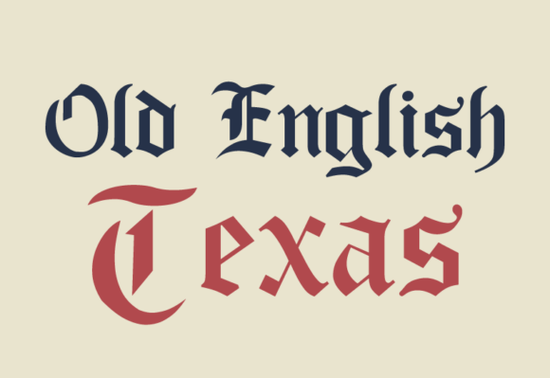
If you're working on a design that calls for bold, historic flair with a Western edge, the Old English Texas Font might be exactly what you need. This blackletter typeface blends traditional Old English letterforms with a rugged, Texan attitude making it stand out from more generic gothic fonts. Whether you're designing vintage signage, tattoo flash sheets, or apparel graphics, this font delivers character without sacrificing readability.
Blackletter fonts like this one have long been associated with medieval manuscripts and formal certificates, but the Old English Texas twist gives it a unique identity. It’s especially useful if your project leans into themes like cowboy culture, outlaw aesthetics, or heritage branding. The ornate serifs and dramatic strokes catch the eye, which is why it works so well for headlines, logos, and short-form text where impact matters more than body copy.
What kinds of projects work best with Old English Texas?
This font shines in visual contexts where style and mood are as important as the message itself. Here are a few real-world uses:
- T-shirt and merch designs – Pair it with distressed textures or leather backgrounds for an authentic Western feel.
- Bar or restaurant signage – Think saloons, steakhouses, or breweries wanting to evoke old-school charm.
- Tattoo artists – Many clients request Old English–style lettering; this version adds regional personality.
- Event posters – Rodeos, music festivals, or historical reenactments benefit from its dramatic presence.
- Branding for small businesses – Especially those rooted in tradition, craftsmanship, or local pride.
Keep in mind: because of its detailed letterforms, it’s best used at larger sizes. Avoid using it for paragraphs or fine print it’s a display font first and foremost.
How does it compare to other blackletter fonts?
Not all blackletter fonts are created equal. Some lean heavily into Germanic or ecclesiastical styles, while others simplify the forms for modern use. The Old English Texas Font strikes a balance it keeps the classic vertical stress and sharp angles of traditional blackletter but softens certain edges just enough to feel approachable.
If you’ve tried fonts like Rebella, which offers a more delicate, calligraphic take, or BlackLottery, known for its high-contrast drama, you’ll notice Old English Texas sits somewhere in between bold but not overwhelming, ornate but still legible. And if you’re exploring options within the same family, you can see how it fits alongside other choices like the Old English Texas variant itself, which may include alternates or stylistic sets depending on the version you download.
Is it beginner-friendly for crafters and POD sellers?
For print-on-demand creators, this font works beautifully on mugs, hoodies, and posters especially when paired with simple color schemes like black-and-white, sepia, or burnt orange and navy. Just avoid placing it over busy backgrounds; solid or subtly textured backdrops let the letterforms shine.
Final tip before you download
Before committing, consider your project’s tone. Old English Texas isn’t neutral it tells a story. If your brand or design leans rustic, rebellious, or steeped in tradition, it’s a strong match. But if you’re going for minimalism, tech-forward vibes, or playful whimsy, another typeface might serve you better.
Quick checklist before using Old English Texas Font:
- Use only for headlines, logos, or short phrases not body text.
- Test readability at your intended size (minimum 24pt recommended).
- Pair with a clean sans-serif for contrast if you need supporting text.
- Preview it against your background ornate fonts can disappear on patterned surfaces.
When used with intention, the Old English Texas Font adds authenticity and visual weight that generic scripts often lack. It’s not just decorative it’s narrative.